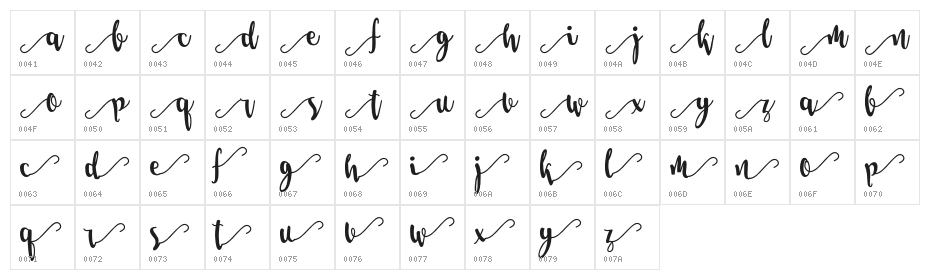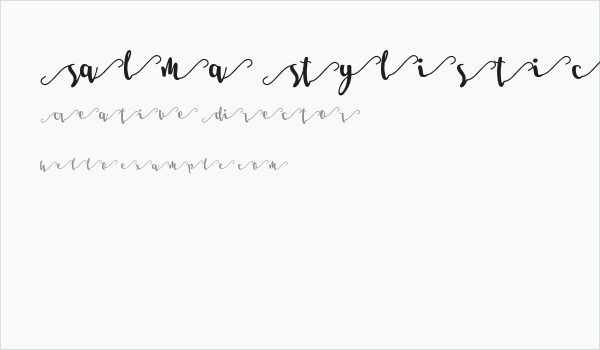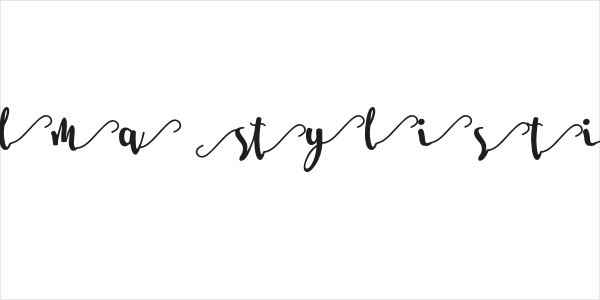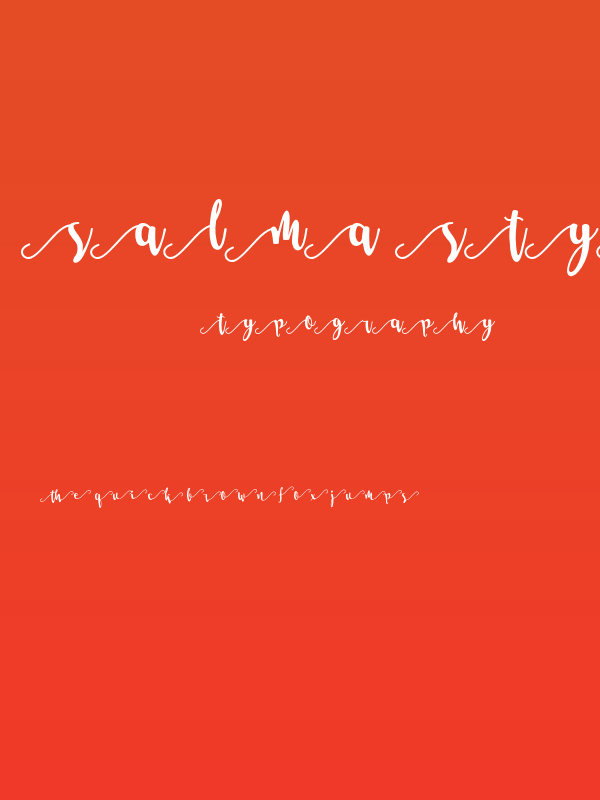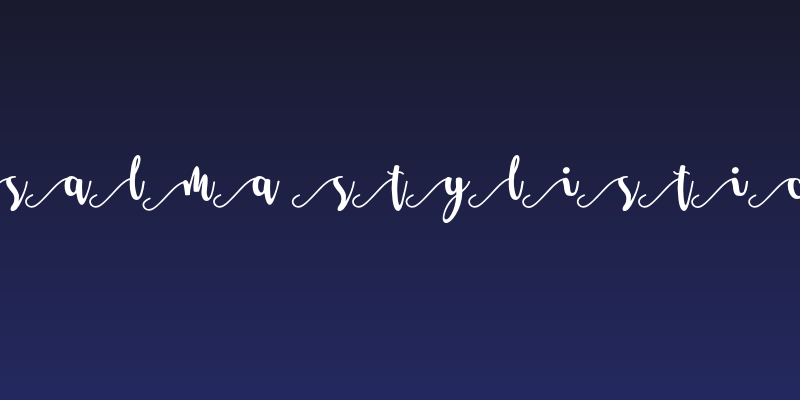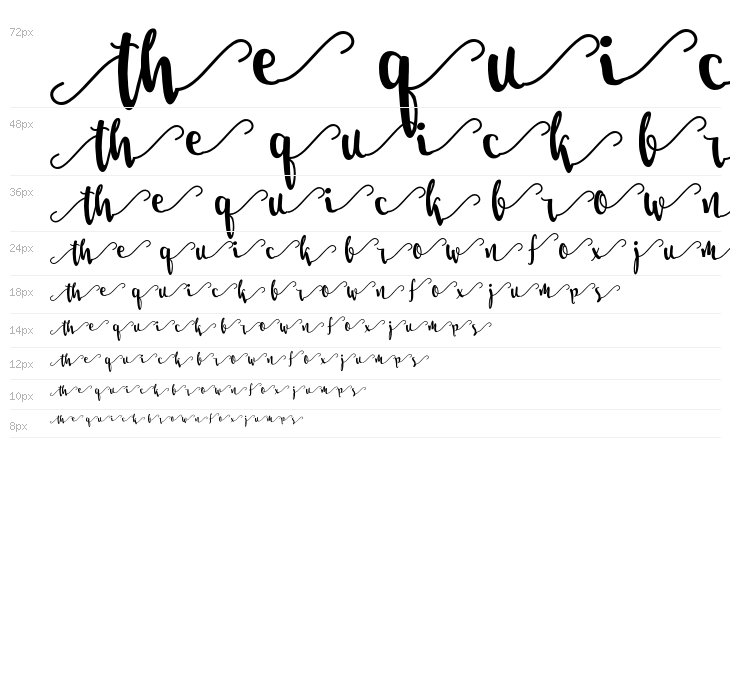
Salma Stylistic 3 Font
Salma Stylistic 3 Description
This font features an elegant and flowing script style, characterized by its intricate and decorative swashes. Each letter is crafted with a sense of fluidity and grace, making it ideal for projects that require a touch of sophistication and charm. The uppercase and lowercase letters are designed with consistent loops and curves, creating a harmonious and visually appealing appearance. The font's overall aesthetic is both romantic and artistic, suitable for invitations, branding, and other creative applications where a personal and stylish touch is desired.